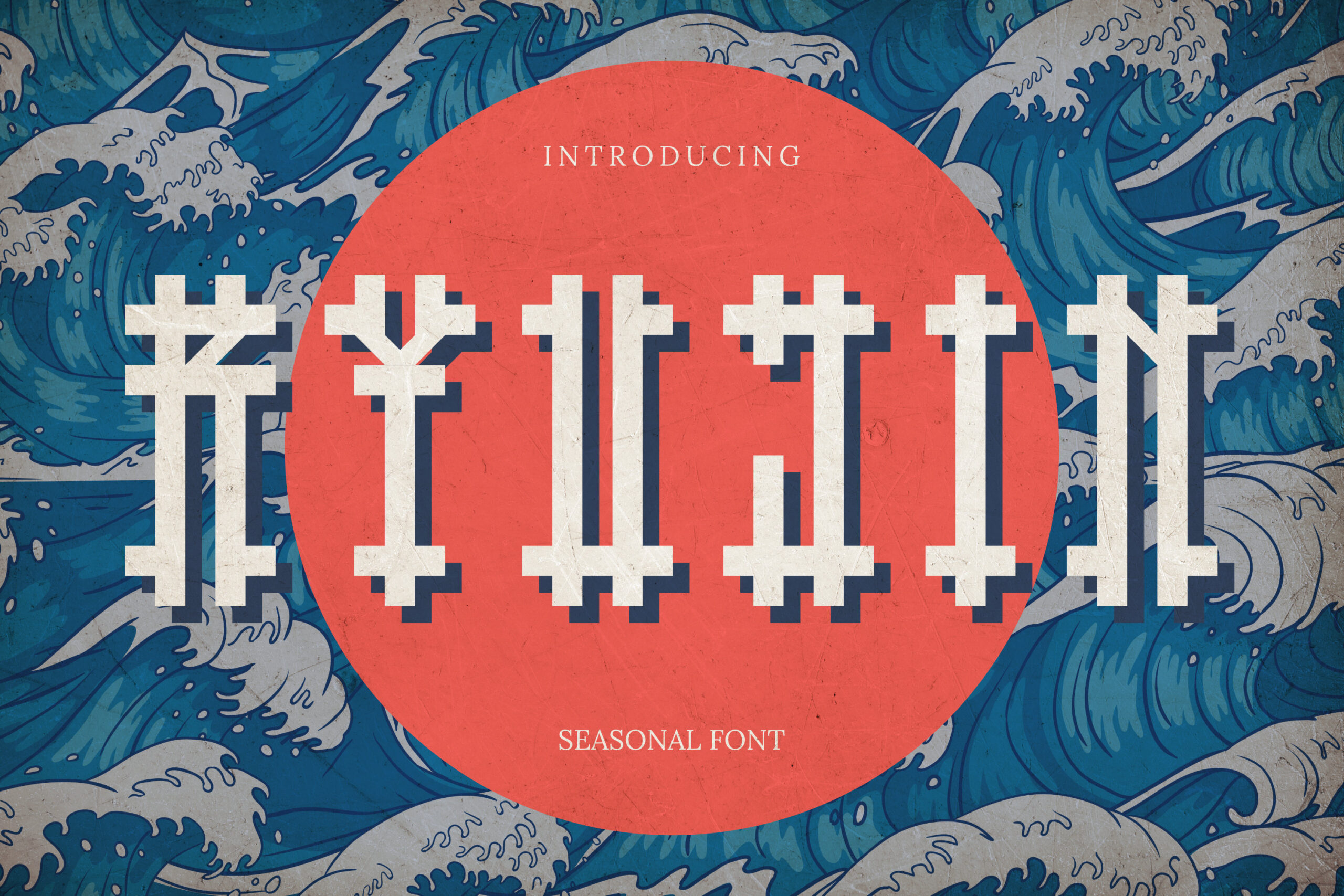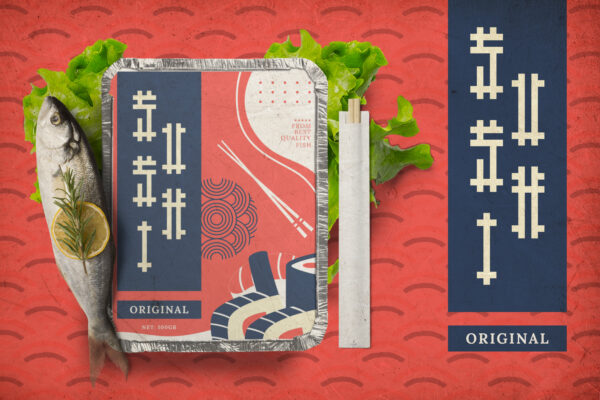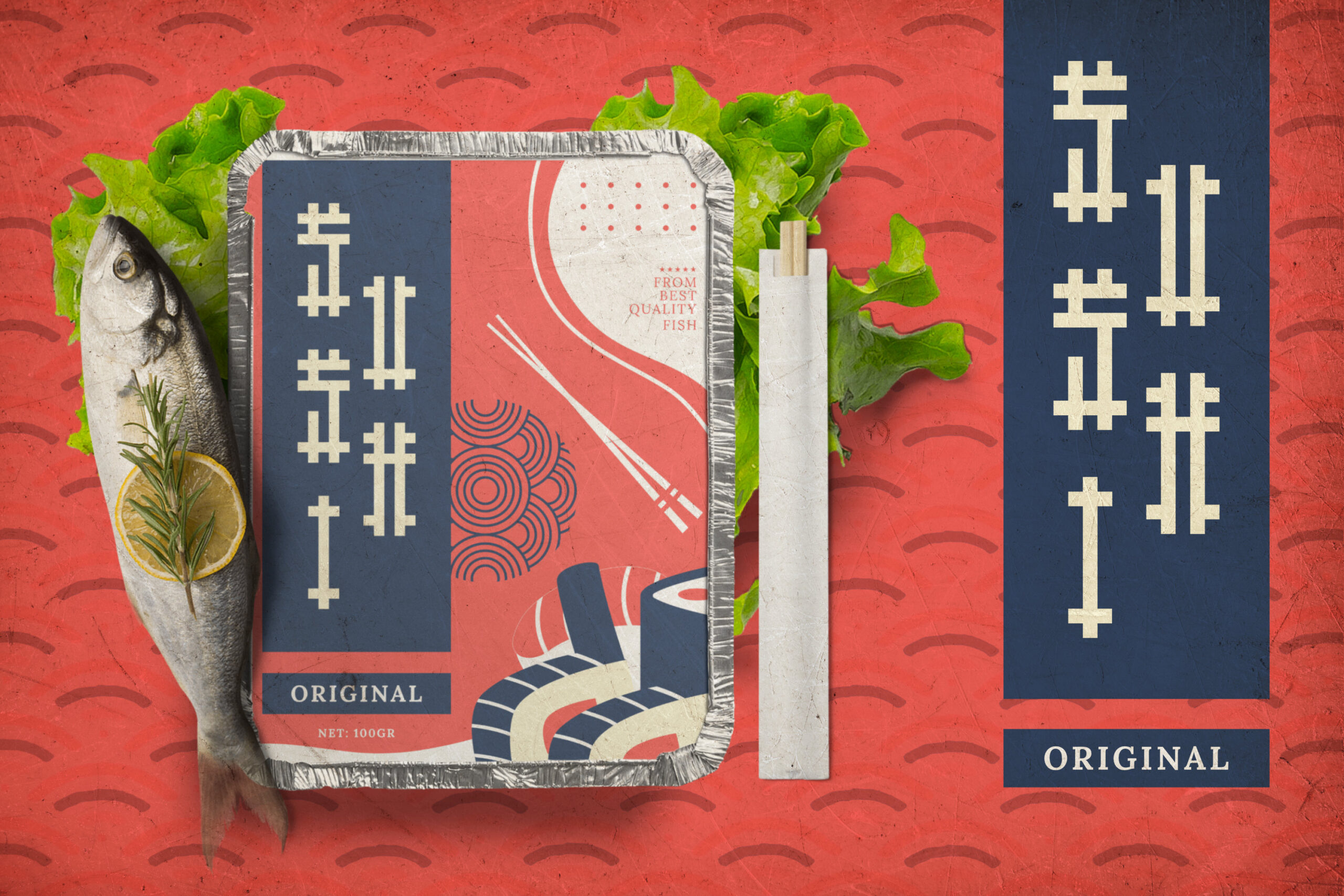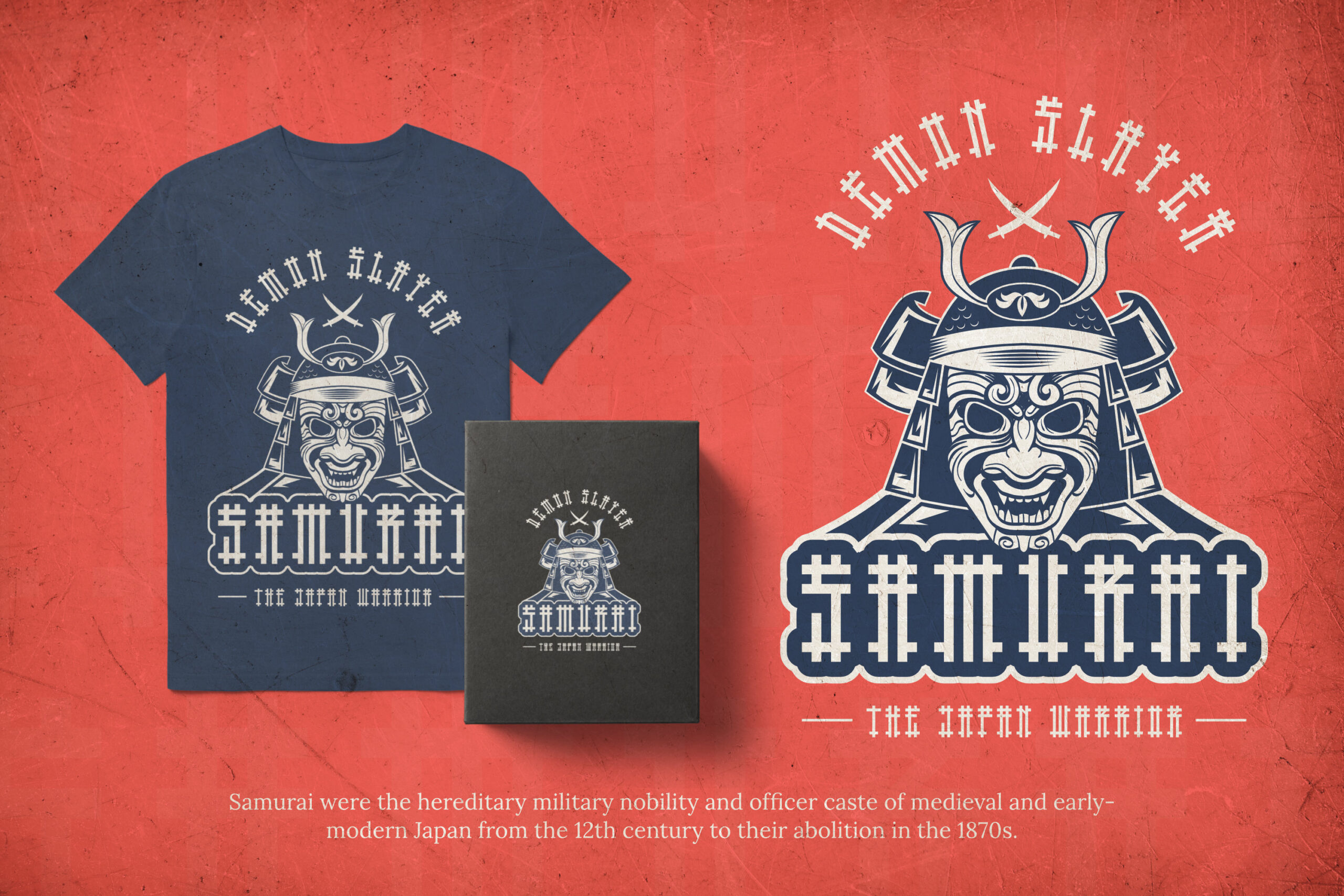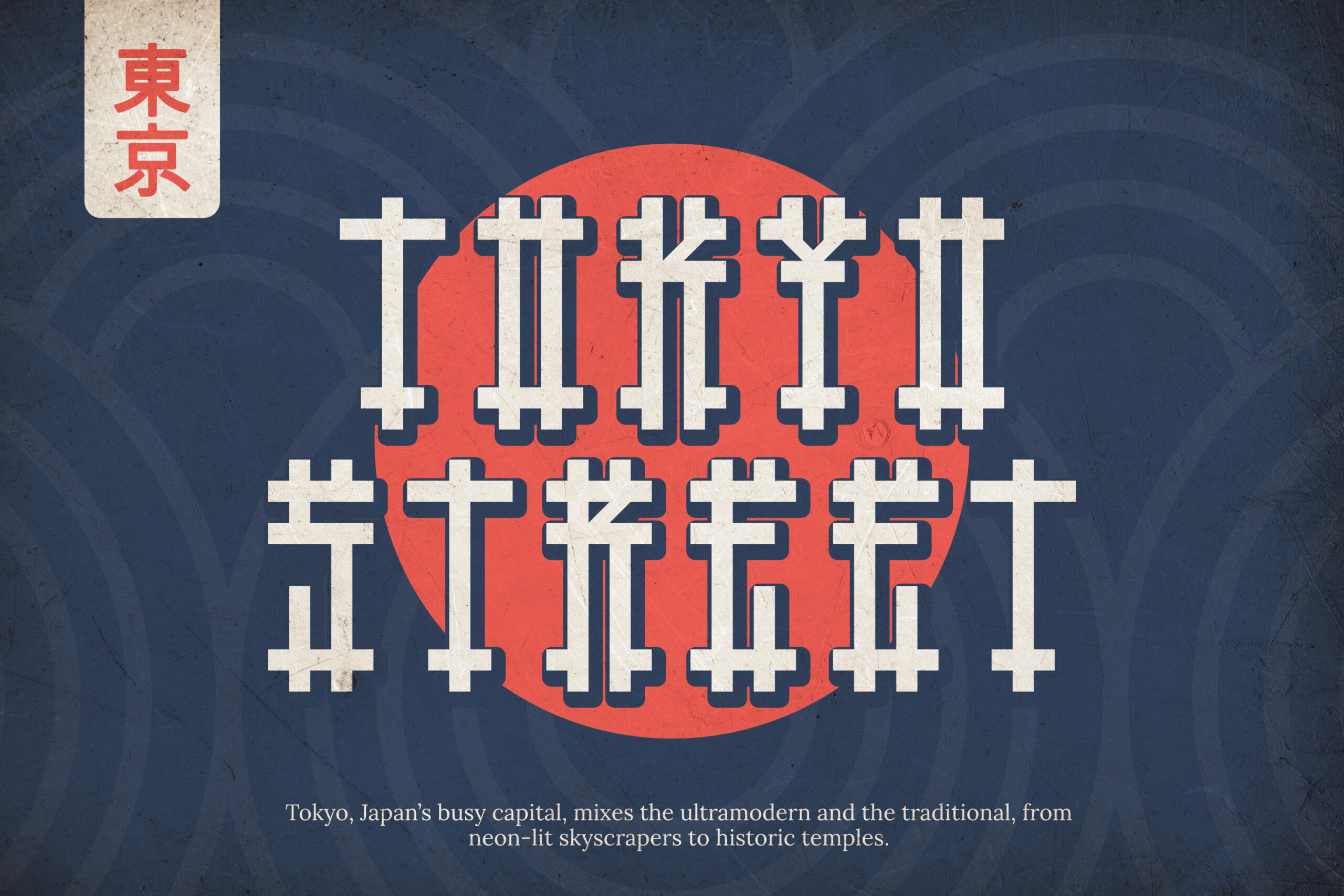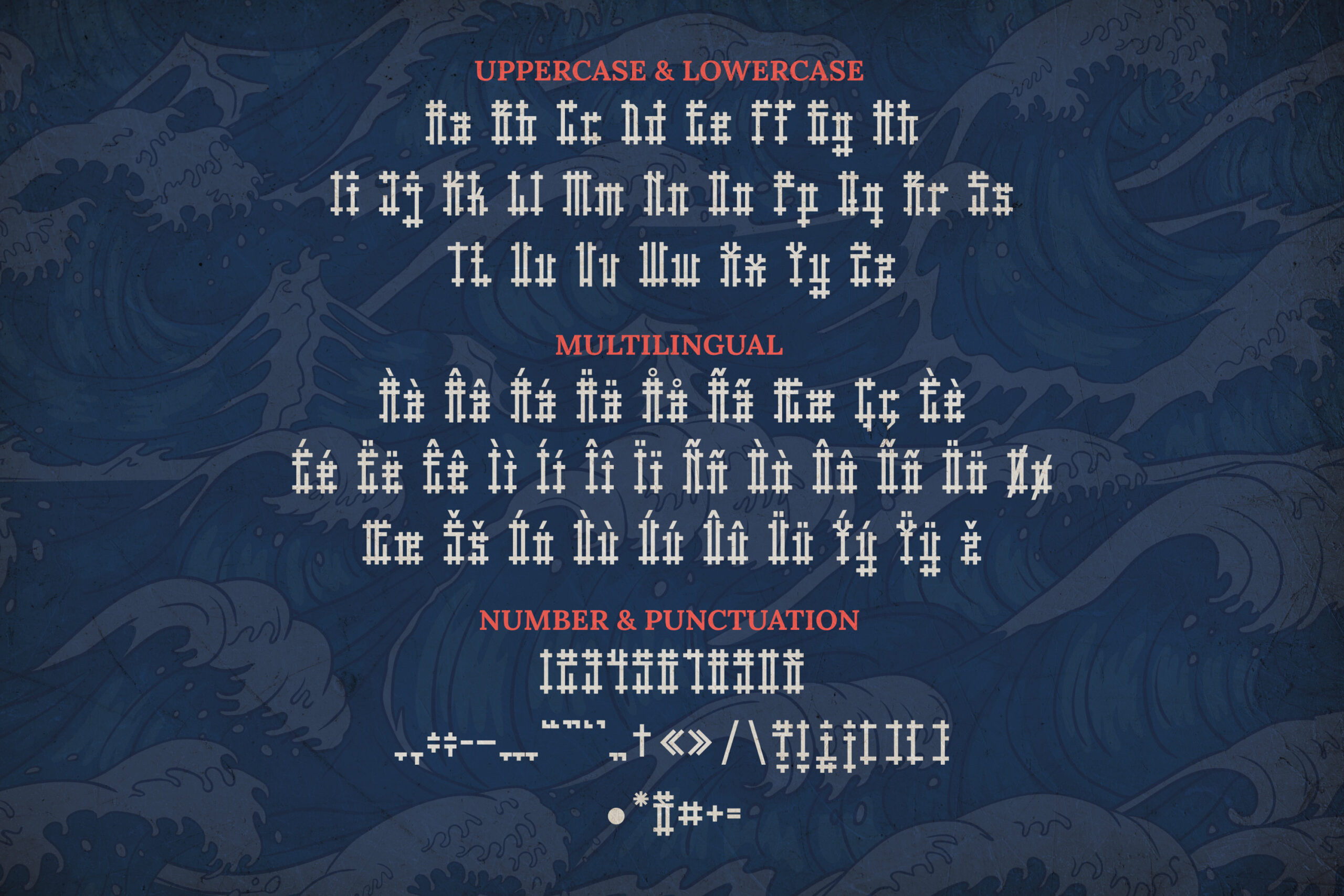
Ryujin is a striking seasonal display font inspired by Japanese mythology, featuring geometric construction and bold decorative forms. With strong vertical structures and ornamental serifs reminiscent of samurai armor and ancient kanji symbolism, this font blends tradition with modern visual strength. Its standout design makes it ideal for projects related to Japanese culture, sushi packaging, martial arts branding, or historical editorial work.
Ryujin comes fully equipped with uppercase, lowercase, multilingual characters, numbers, and punctuation, offering creative versatility across platforms. Whether you’re working on themed apparel, restaurant branding, or poster artwork, this font delivers a commanding visual presence rooted in heritage and stylized storytelling.
Ryujin